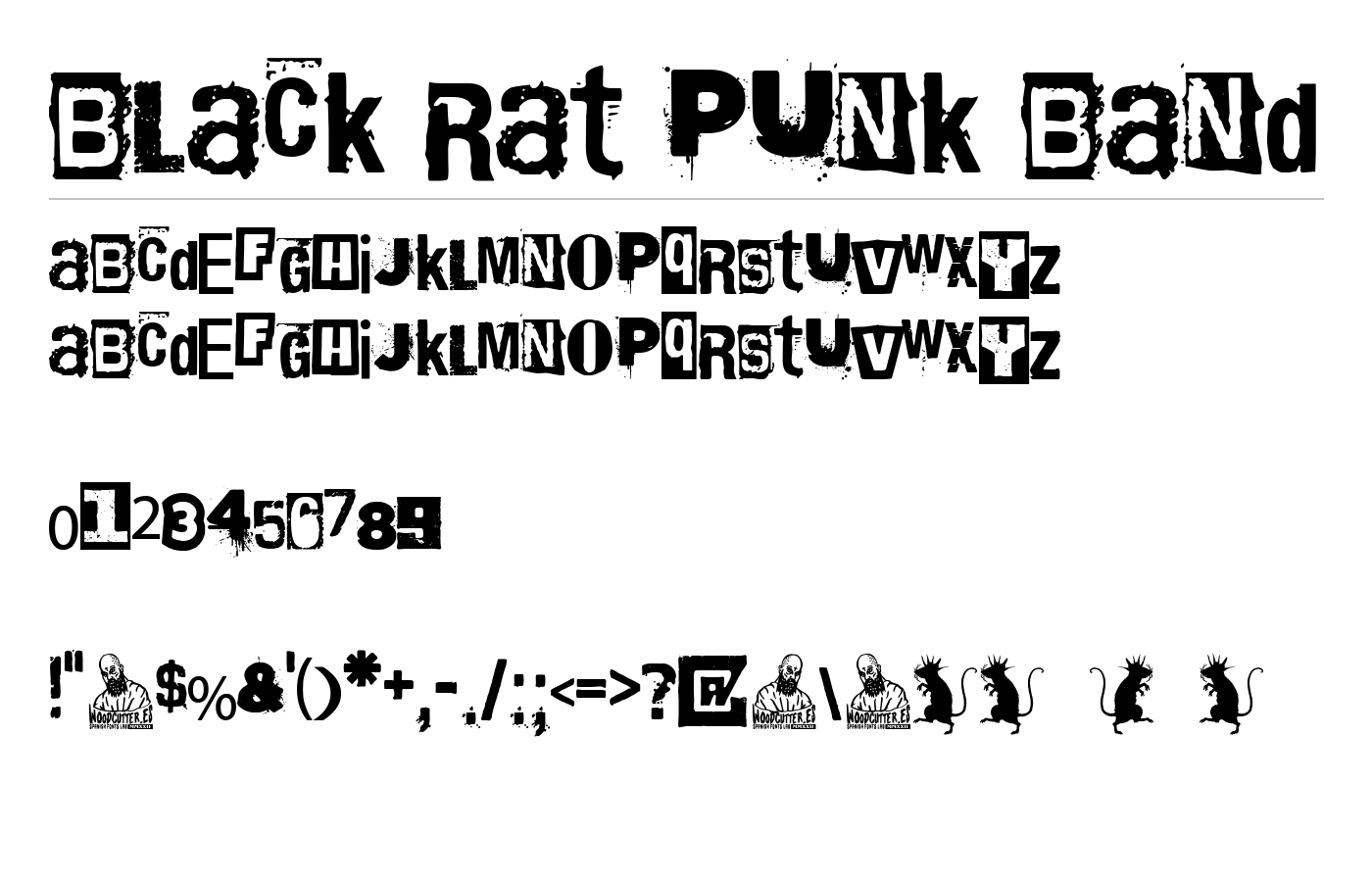
Black Rat Punk Band is a bold, distressed sans serif font with a raw, grungy style that captures the rebellious energy of punk culture. Its uneven, high-contrast strokes and irregular shapes give it a chaotic, hand-stamped look, perfect for edgy branding, music posters, and youth-oriented designs. This font works well in eye-catching headlines and logos where a rough, underground vibe is desired.
Black Rat Punk Band Font
About Black Rat Punk Band Font